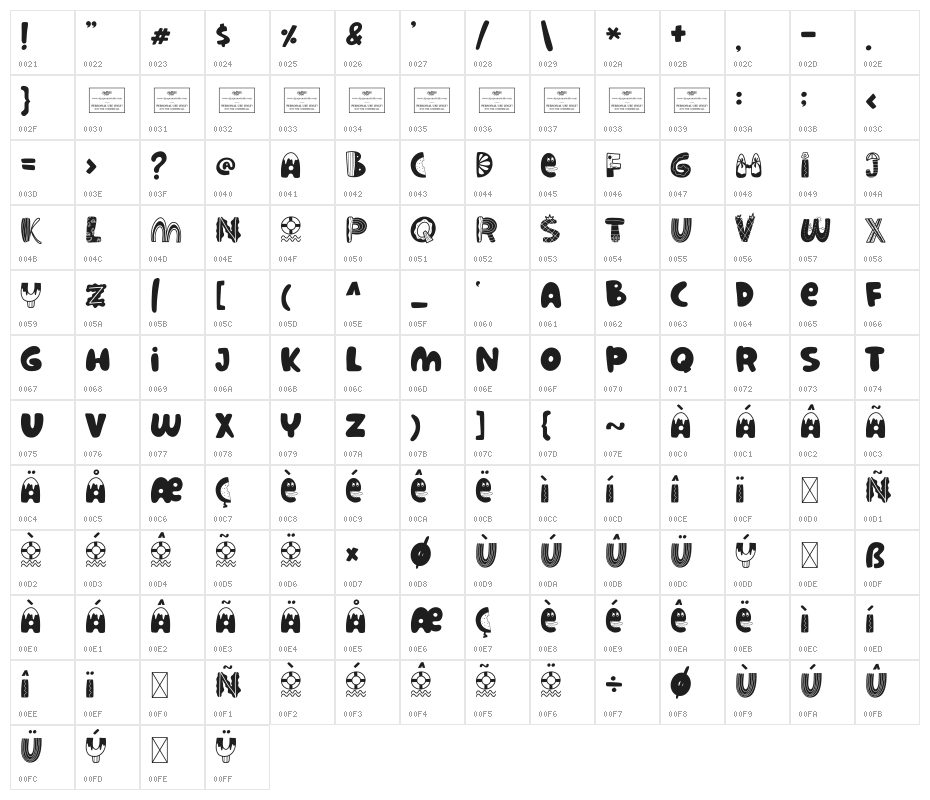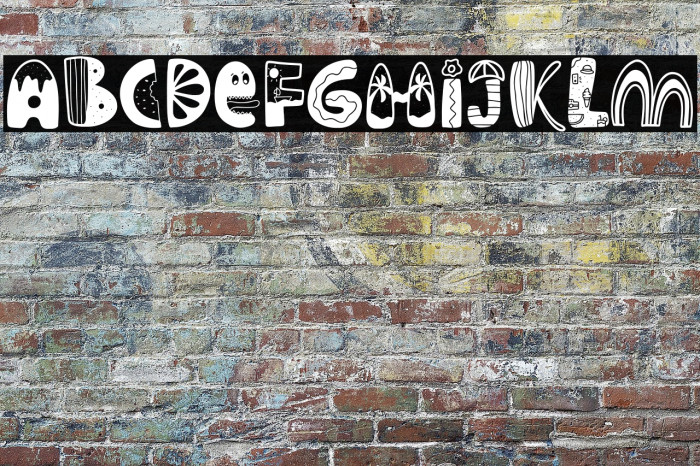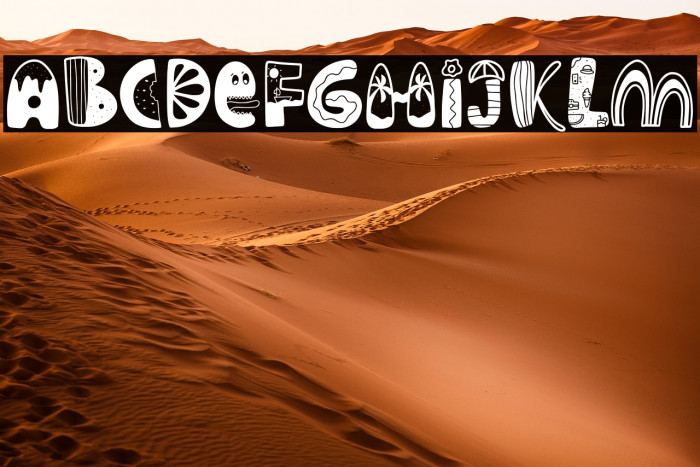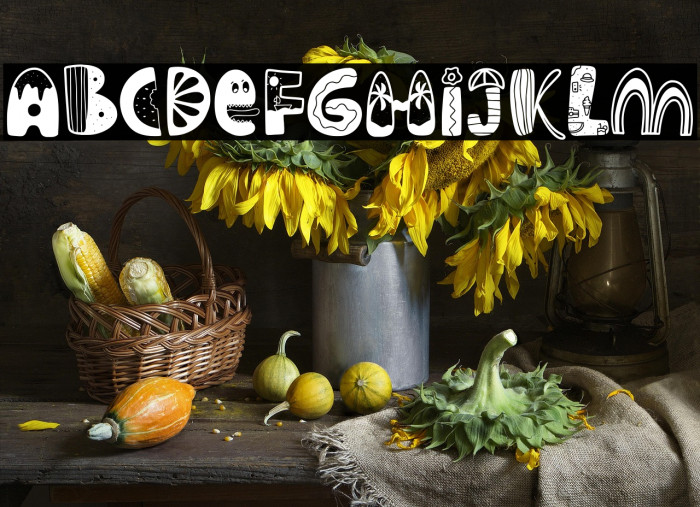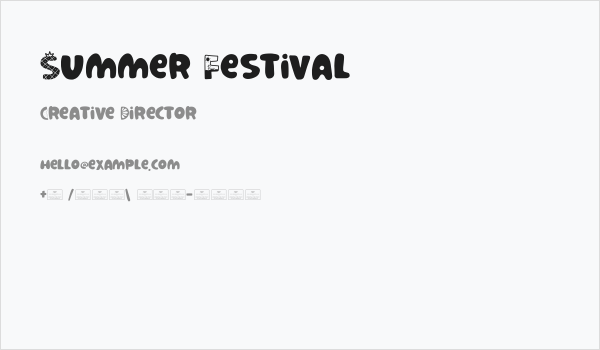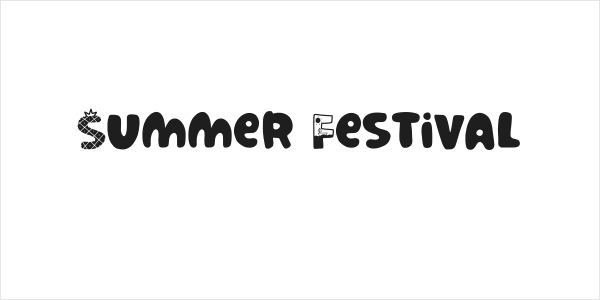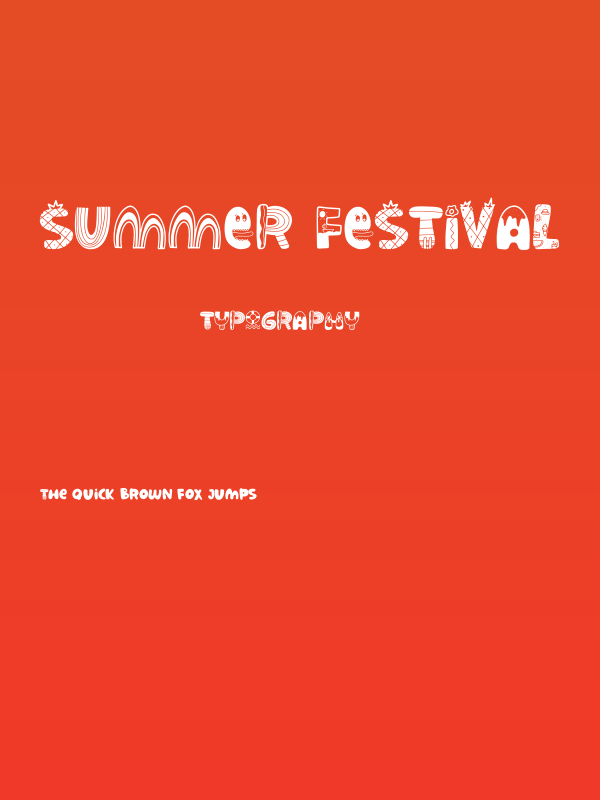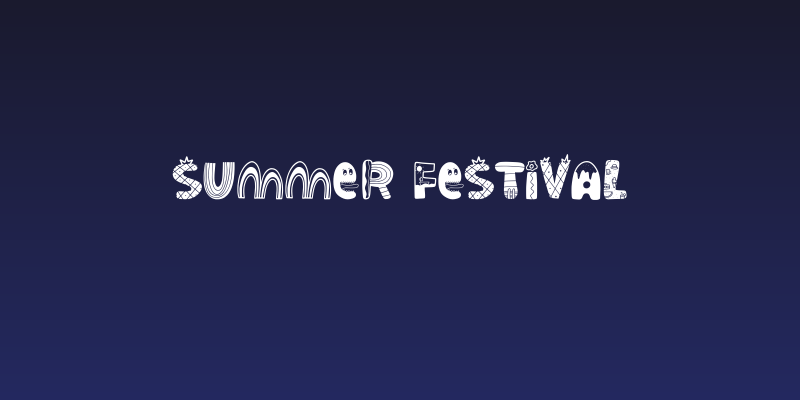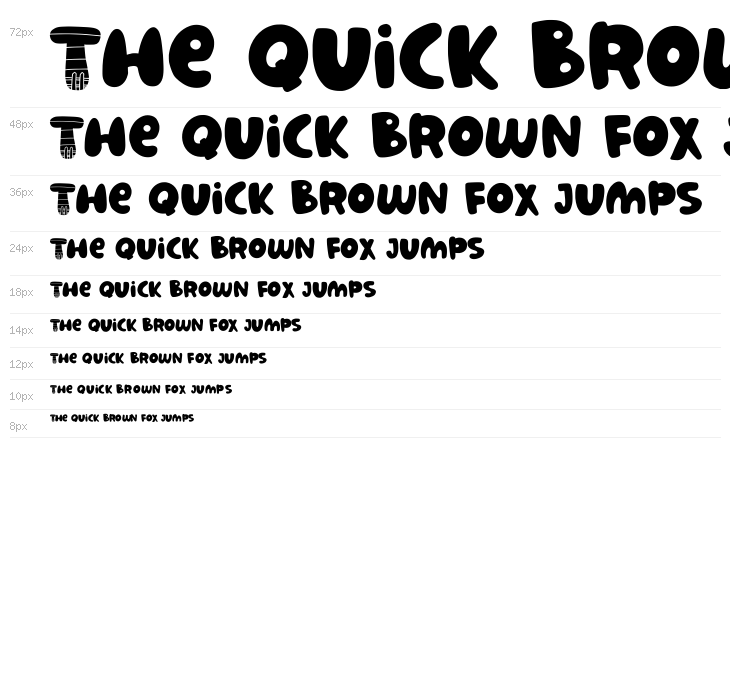
Summer Festival Font
Summer Festival Description
This playful and vibrant font features a variety of whimsical designs within each letter, reminiscent of a festive summer theme. The uppercase letters are filled with unique patterns and illustrations, such as waves, stripes, and abstract shapes, giving each character a distinct personality. The lowercase letters maintain a bold and rounded style, offering a more uniform appearance. The font includes a full set of numerals and a selection of special characters, all designed to complement the lively aesthetic. This font is perfect for capturing the essence of fun and creativity, making it ideal for projects that require a touch of whimsy and excitement.
| Proposed Projects | Ideal for summer festival posters, children's book covers, party invitations, and playful branding. |